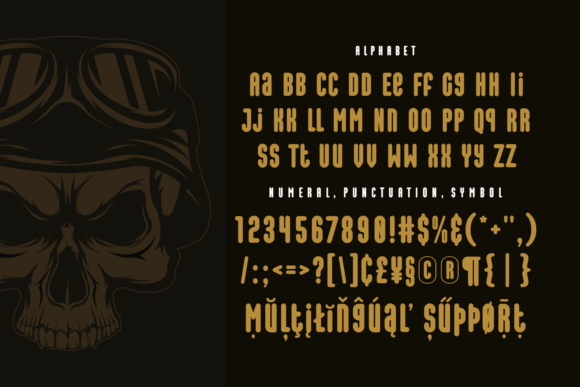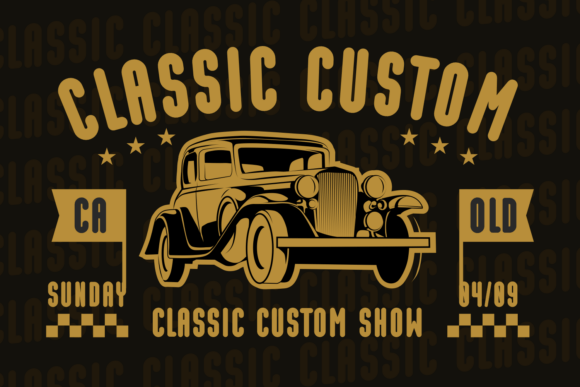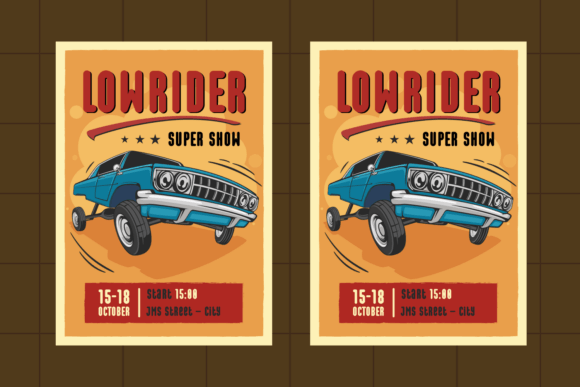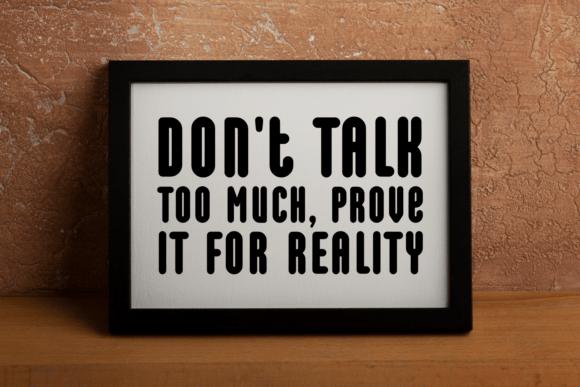
The Perfect Blend of Retro and Modern: Introducing the Bereal Font
Who hasn’t been stuck on a design project, scrolling through font libraries, searching for that one perfect typeface that captures the essence of their vision? I know I have, and it’s moments like those that make me appreciate the beauty of a well-designed font. The Bereal Font is one such gem that’s sure to transport your designs back in time while keeping them firmly rooted in modernity.
With its bold sans serif design, Bereal Font is perfect for adding a touch of nostalgia to your headlines and eye-catching designs. Its clean lines and playful vibe make it an instant favorite among designers, and for good reason – it’s easy to read, modern, and uniquely stylish.
Bereal Font Key Features
- Font Family: BeReal Font is a custom, sans-serif font designed specifically for the BeReal social media platform.
- Font Size: BeReal Font is designed to be highly legible at small font sizes, making it ideal for mobile devices and social media platforms.
- Resolution: Optimized for high-resolution displays, ensuring crisp and clear text rendering on modern devices.
- Unique Characteristics: The BeReal Font features a distinctive, rounded sans-serif design with a friendly and approachable feel.
Bereal Font Review
I recently had the chance to work with the Beereal font, and I must say it’s a unique addition to any designer’s toolkit. ✨ One of the standout features of this font is its quirky, hand-drawn feel, which adds a touch of personality to any project. It’s perfect for branding or advertising campaigns where you want to stand out from the crowd.
The Beereal font also boasts a wide range of weights and styles, from light to bold, which makes it incredibly versatile. Whether you’re creating a logo, headline, or body text, Beereal has got you covered. ✨
- ⚠️ The font’s quirky feel may not be suitable for all projects, particularly those requiring a more formal or traditional look.
Overall, I’m a big fan of the Beereal font. Its unique style and versatility make it a great addition to any designer’s toolkit. While there are some limitations to consider, the benefits far outweigh the drawbacks. I’d definitely recommend giving Beereal a try for your next project.
Bereere Font is suitable for a variety of design projects, including logos, branding materials, and marketing materials. It is also a great choice for creating custom typography, such as title cards and captions. Consider using the font in combination with other design elements, such as images and shapes, to create visually appealing designs.